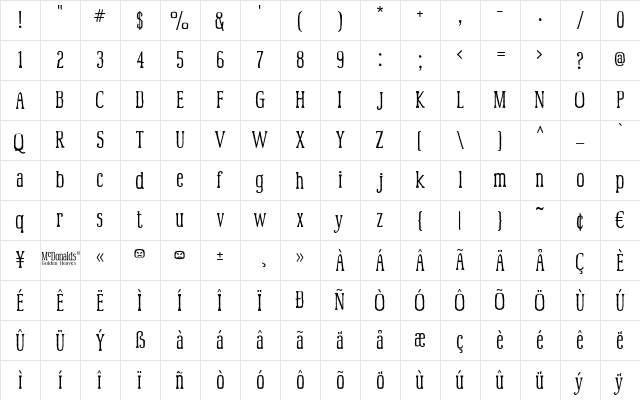
McFood Poisoning 1 Regular
Design Context for McFood Poisoning 1 Typeface
McFood Poisoning 1 offers clean, dependable letterforms without strong stylistic allegiance, making it a practical choice for designers who need flexibility.